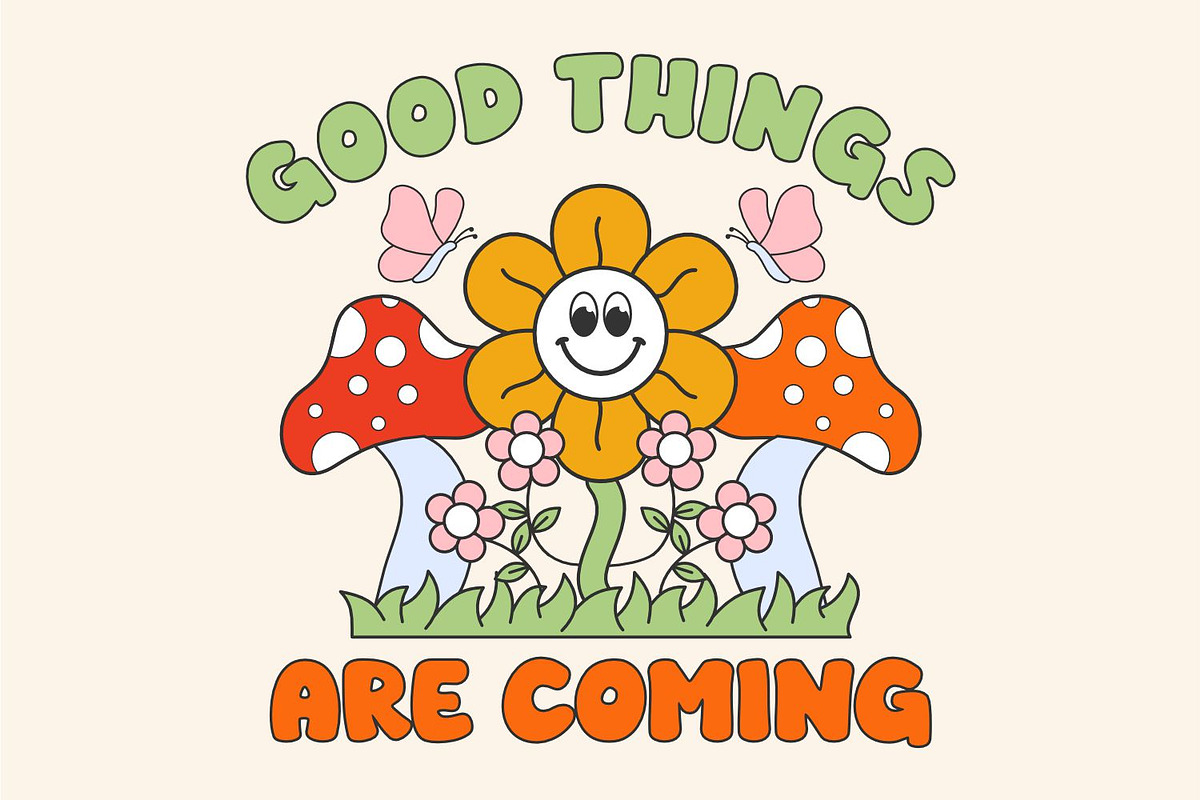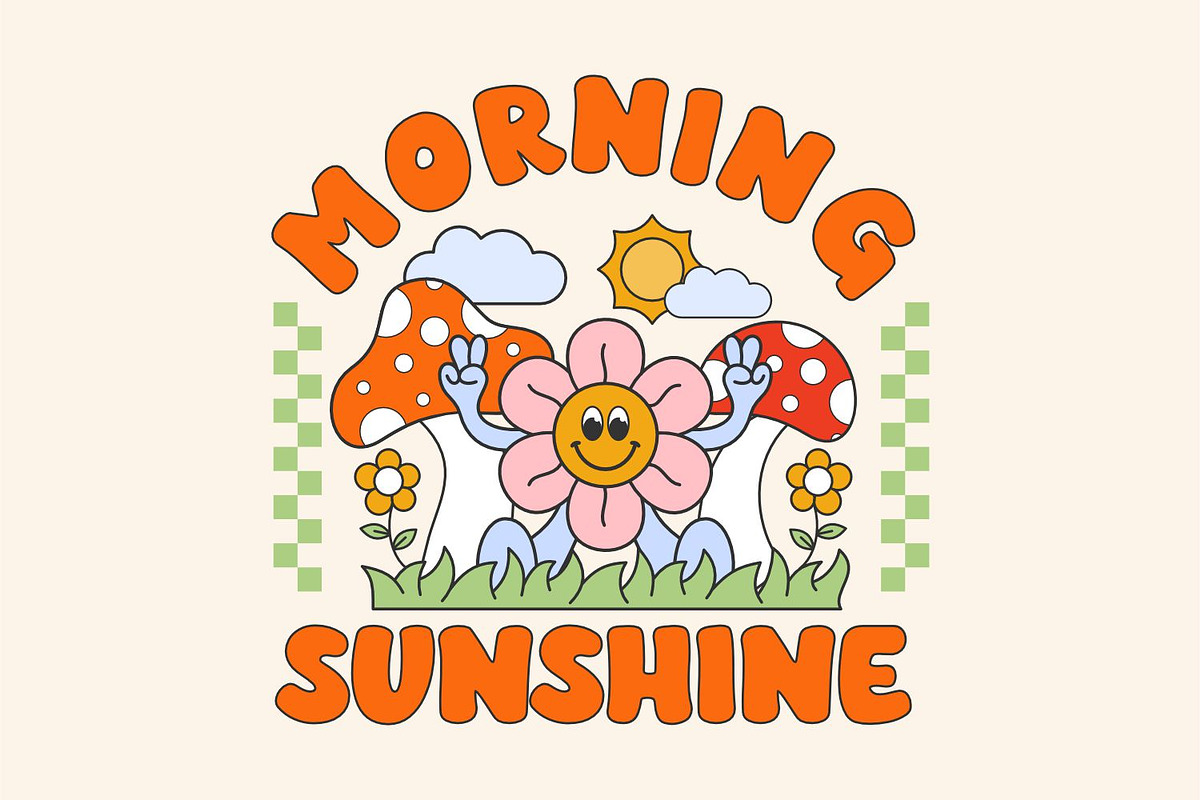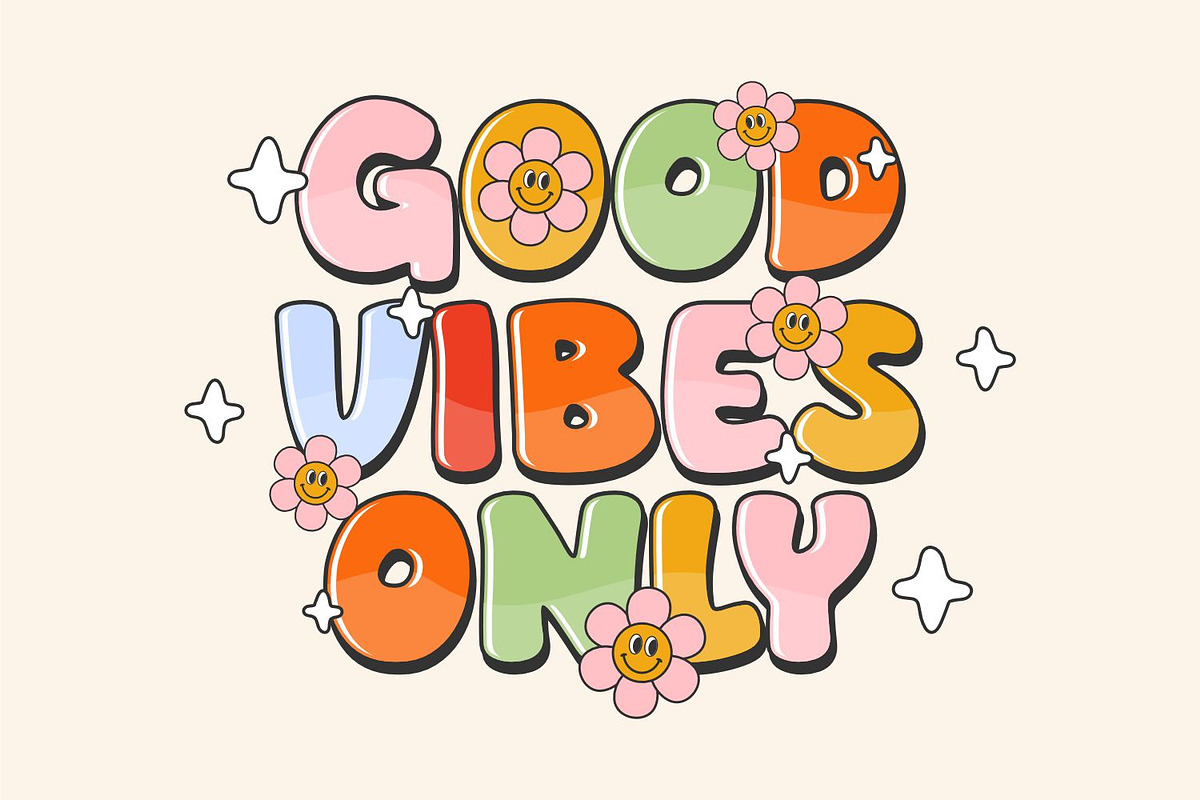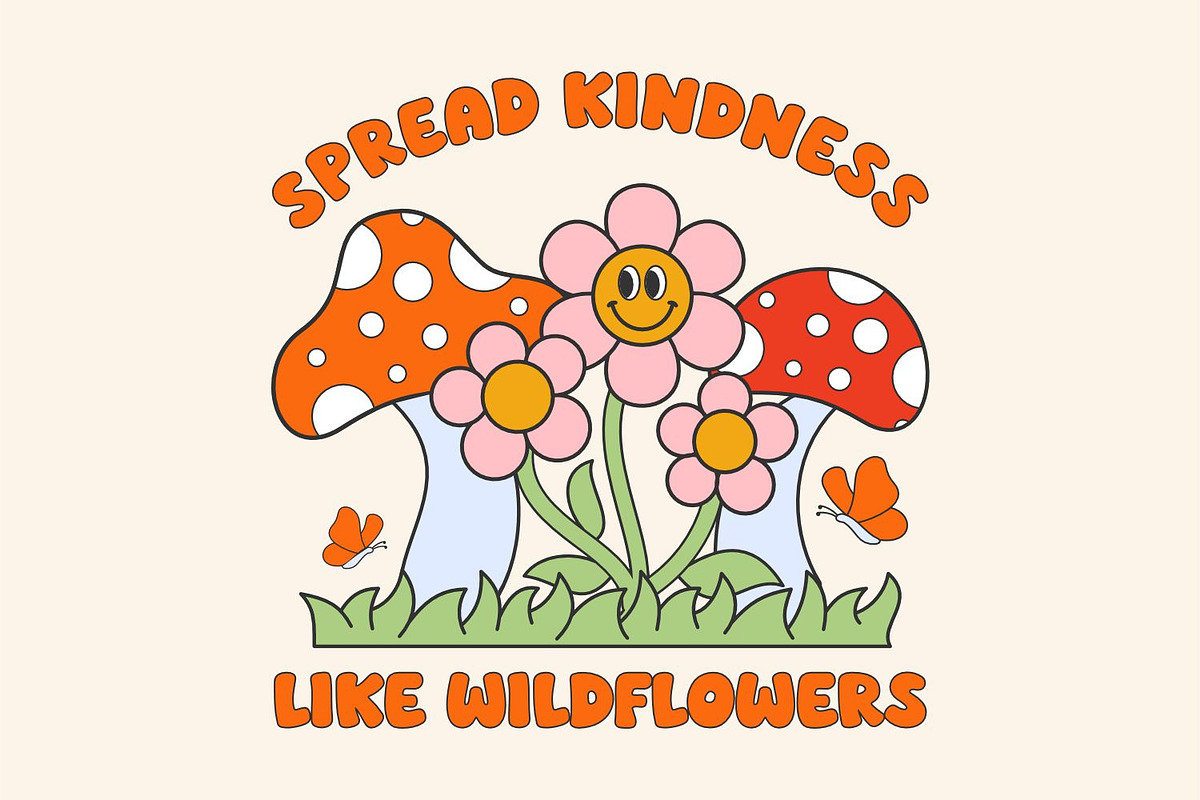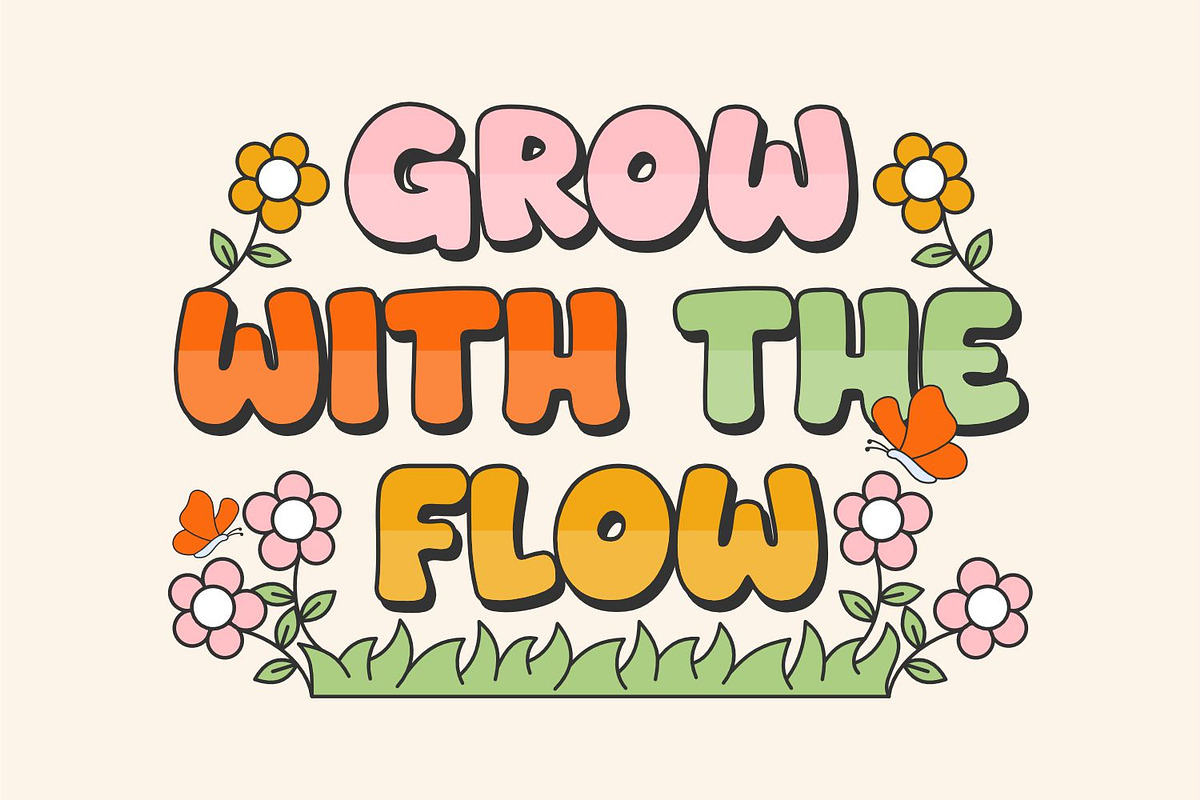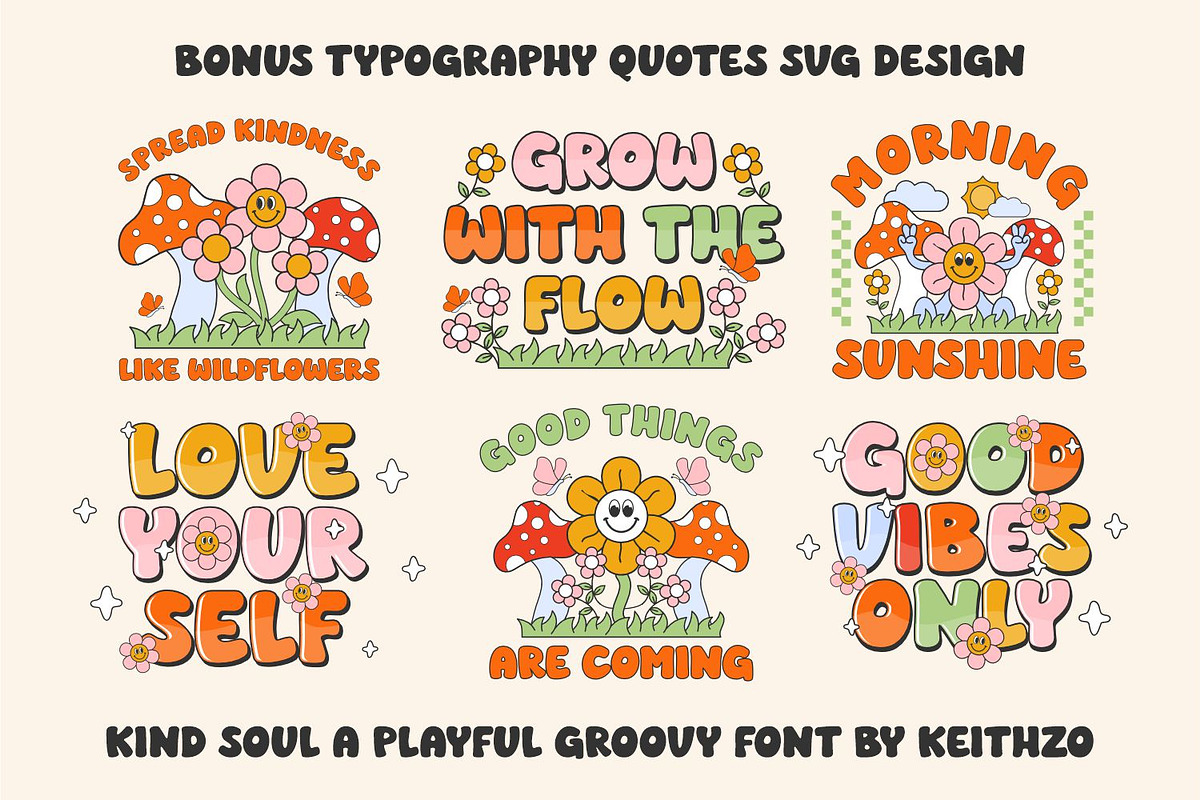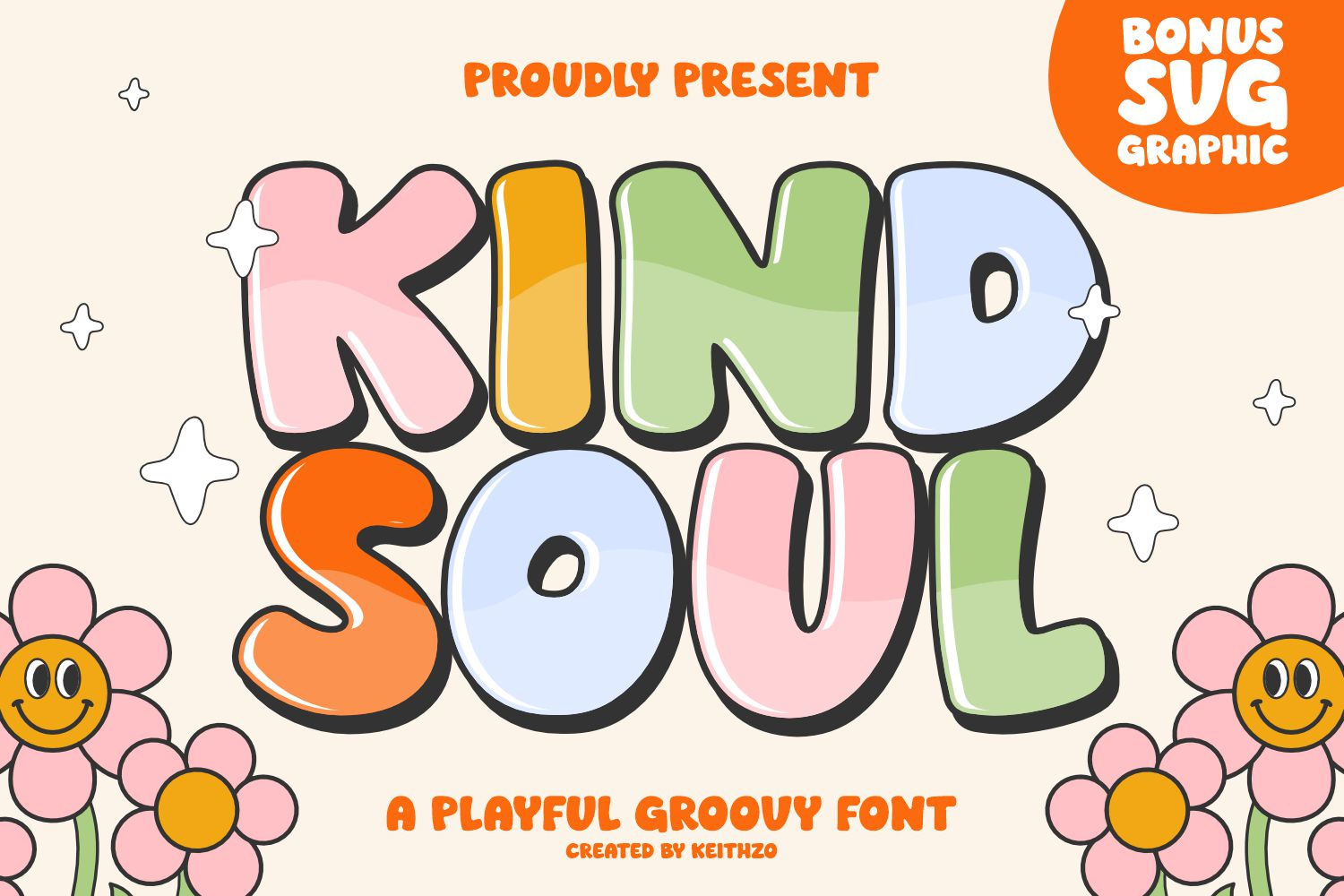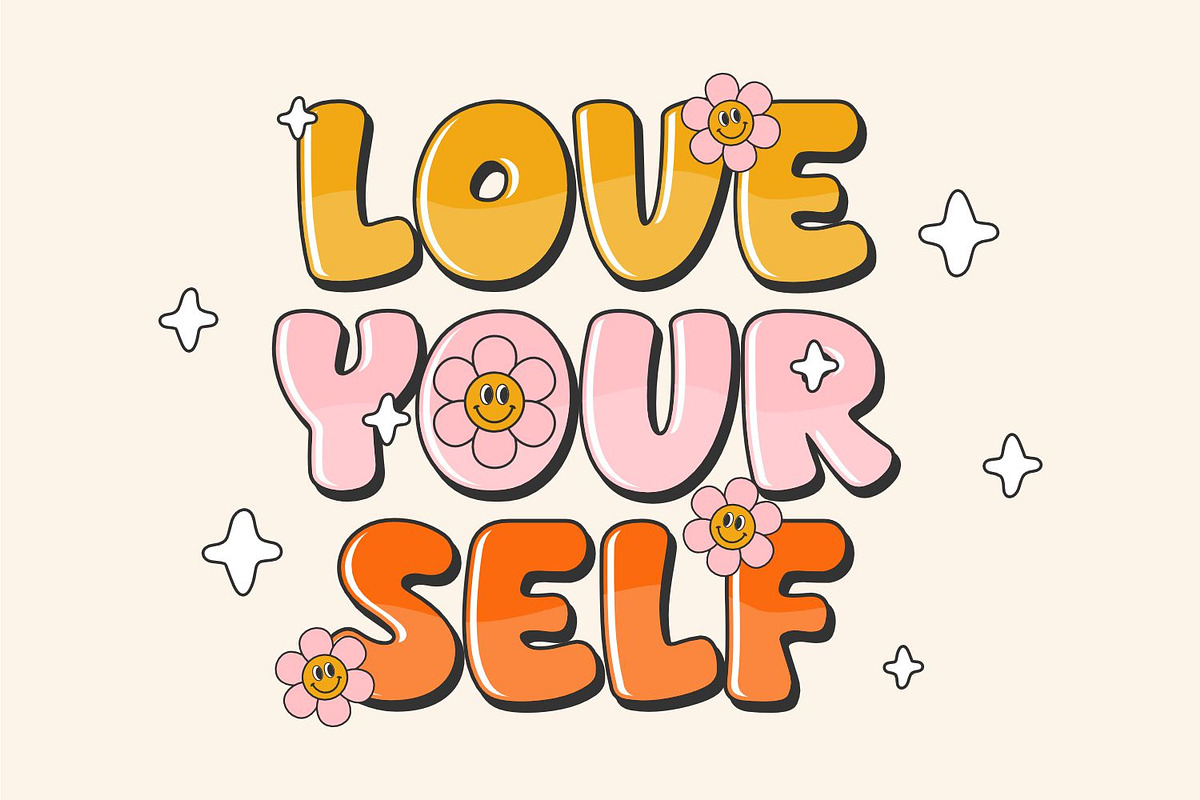
Kind Soul - Playful Groovy Font
Kind Soul is bold and expressive. Its thick and solid lines make it easy to read and its conservative bends aren’t overwhelming on the eyes. A balanced fusion of playful and professional, there are a ton of design projects this font will be perfect for.
All Caps Character
Stylistic and Ligatures
Accented characters
Multiple Languages Supported